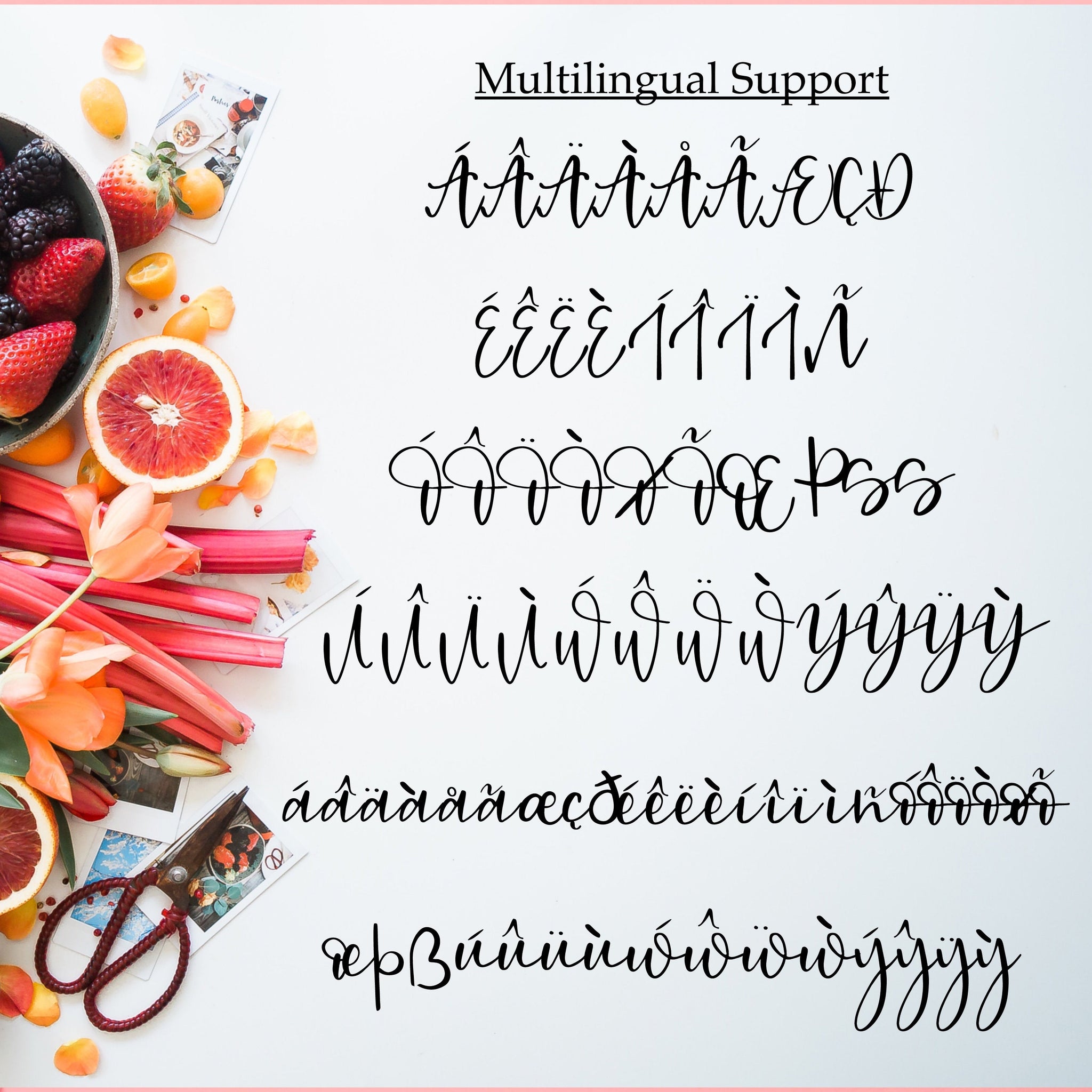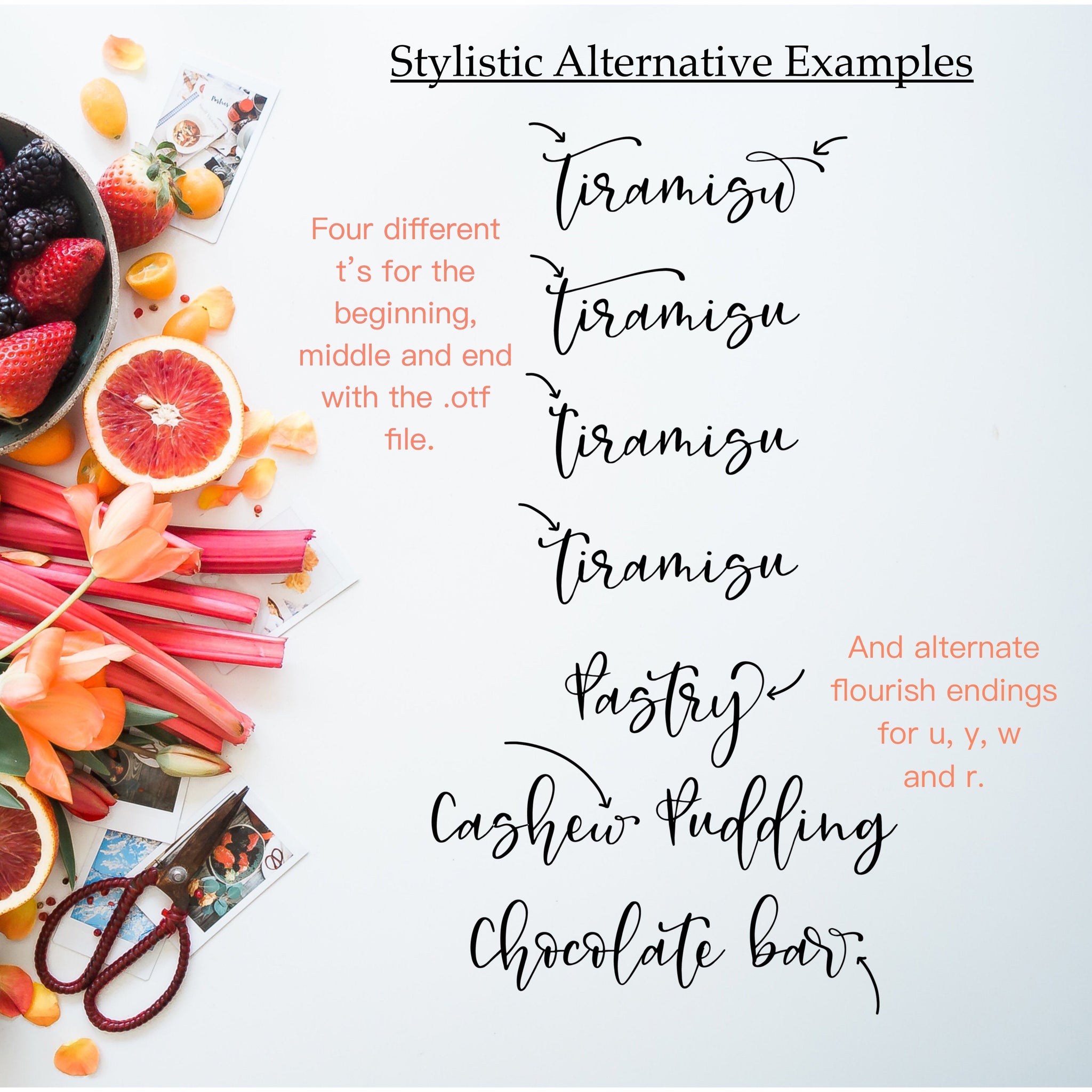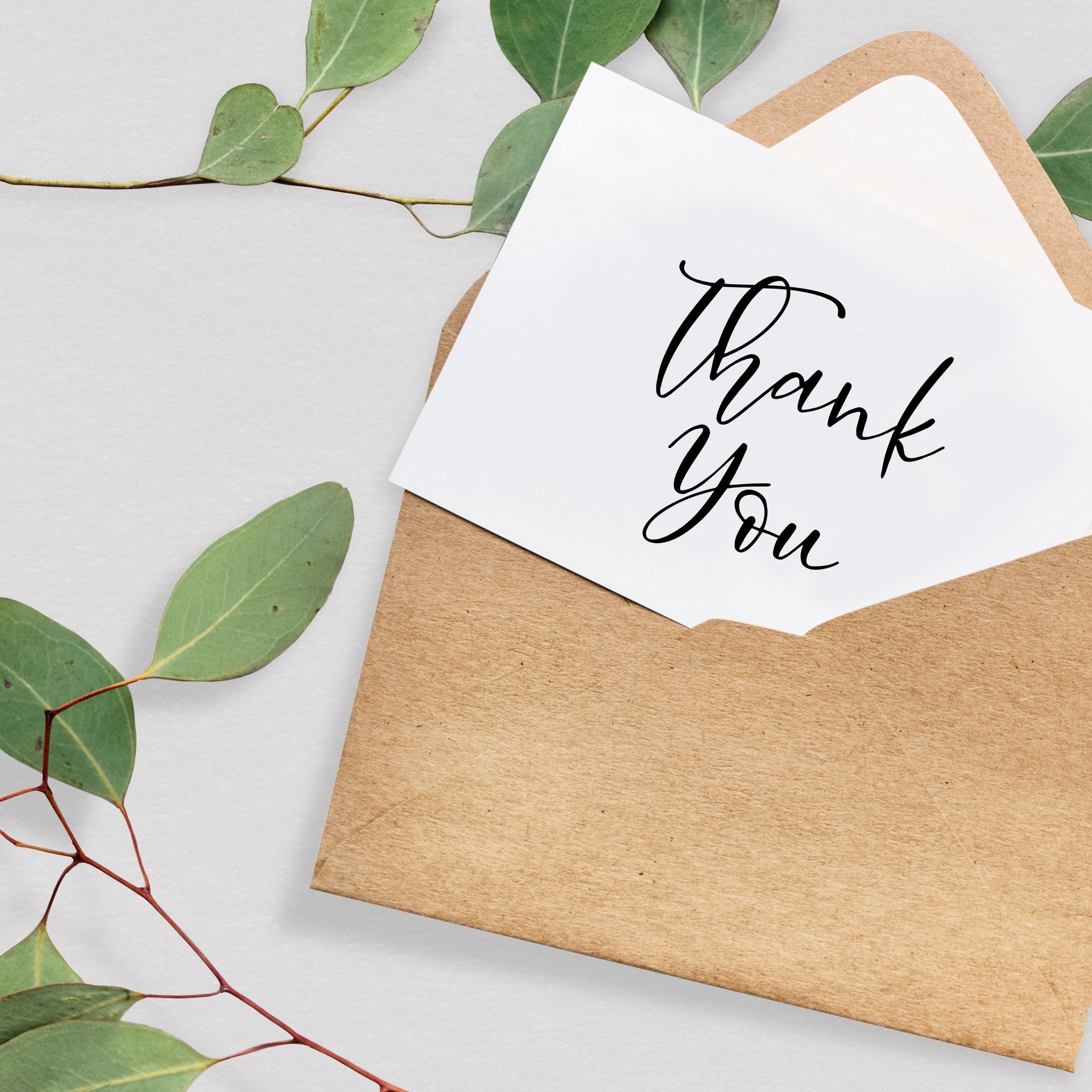
🔅Chocolate Soufflé will be great on your business card, for your personal home decor projects with vinyl-wood-etc, your restaurant menus, and inspirational posts, and business goods!
🔆Chocolate Soufflé contains 5 bonus stylistic alternatives which are great for adding flourishing in, especially at the end of your words. Simply access them through the Glyphs palettes in programs like Illustrator or InDesign. If you don't have these programs, you'll still have access to all of the standard and international characters. Chocolate Soufflé contains multilingual support with accented characters for international Western European users.